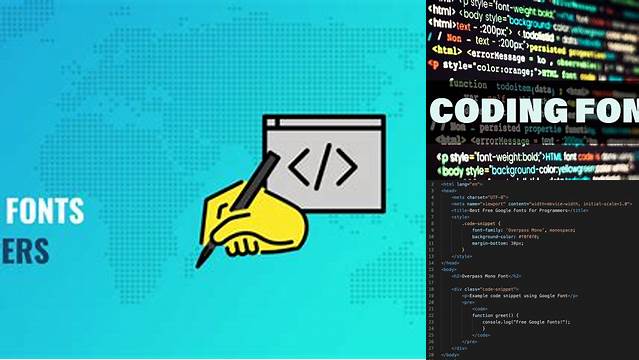
Top Free Coding Fonts: Enhance Your Development Experience
Choosing the right coding font can significantly impact your productivity and overall coding experience. A well-designed font reduces eye strain, improves readability, and helps you spot errors more easily. Luckily, there are tons of fantastic, free coding fonts available. Let's dive into some of the best options and what makes them great.
1. Monospaced Fonts for Coding
When it comes to coding fonts, monospaced fonts are the name of the game. What are they? Well, guys, these fonts ensure that every character occupies the same horizontal space. This is crucial for maintaining alignment in your code, making it easier to read and debug. Imagine trying to align columns of numbers or code with a font where the 'i' takes up less space than the 'm' – absolute chaos! Monospaced fonts eliminate this problem, providing a clean and consistent look. Some popular monospaced fonts for coding include Courier New, Consolas, and Monaco. However, many newer and more stylish options are now available that offer better readability and visual appeal. The key is to find a font that you find comfortable to look at for extended periods. The best way to do this is to try a few different fonts out and see what feels the best. Don't be afraid to experiment with different sizes and weights as well.
2. Best Free Fonts for Programming
Finding the best free fonts for programming is like discovering a hidden gem. These fonts not only save you money but also provide excellent readability and aesthetics for your code. One standout is Fira Code, known for its programming ligatures, which combine characters like != into a single, more readable symbol. Another great option is Source Code Pro, designed by Adobe, offering a clean and minimalist look. Roboto Mono is also a solid choice, providing a modern and approachable feel. When evaluating these fonts, consider factors like the clarity of individual characters, the spacing between lines, and the overall visual comfort. After all, you'll be staring at this font for hours on end, so it better be something you enjoy looking at! Experimenting with different fonts and finding one that suits your personal preferences can significantly improve your coding experience. And the best part? They're all free!
3. Top Coding Fonts Open Source
The open-source community has contributed significantly to the world of coding fonts, offering some of the best options completely free of charge. These fonts are often designed with specific programming needs in mind, focusing on readability and clarity. A prime example is Hack, a font specifically created to be a distraction-free coding typeface. It offers a wide range of glyphs and is designed to be easily readable on screens of all sizes. Another notable mention is JetBrains Mono, developed by JetBrains, the company behind popular IDEs like IntelliJ IDEA. It's designed to reduce eye strain and improve code comprehension. The beauty of open-source fonts is that they are often actively maintained and improved by the community, ensuring they remain up-to-date and meet the evolving needs of developers. Plus, you can often contribute to their development if you have suggestions or improvements! It is the best way to support the community of developers.
4. Free Fonts for Web Development
For web developers, the choice of font extends beyond the code editor to the actual websites they create. While the focus here is on coding fonts, many of these translate well to the web. When choosing free fonts for web development, consider factors like readability, rendering across different browsers and devices, and overall aesthetic appeal. Google Fonts offers a vast library of free fonts that are easy to embed in your web projects. Some excellent choices include Open Sans, Roboto, and Lato, all of which are highly readable and widely supported. When using these fonts in your web projects, make sure to optimize them for web performance. This includes using the correct font weights and subsets, and leveraging browser caching to ensure fast loading times. After all, a beautiful font is useless if it slows down your website!
5. Monospace Font Alternatives
While monospace fonts are the standard for coding, exploring monospace font alternatives can sometimes lead to pleasant surprises. Some developers find that certain proportional fonts, when carefully chosen, can offer a more natural and comfortable reading experience. However, it's crucial to ensure that the font maintains good alignment and doesn't introduce visual clutter. One potential alternative is using a font with a tabular lining feature, where numbers are monospaced even in a proportional font. This can be useful for aligning numerical data in your code. Another approach is to use a font that is specifically designed for reading long texts on screen, as these often prioritize readability and eye comfort. Ultimately, the choice comes down to personal preference and the specific requirements of your coding environment. Always test the font thoroughly to ensure it doesn't negatively impact your productivity.
6. Coding Font with Ligatures Free
Coding fonts with ligatures are a game-changer for many developers. Ligatures combine multiple characters into a single glyph, making code easier to read and understand. For example, the characters != might be displayed as a single ≠symbol. This can improve the visual flow of your code and reduce cognitive load. Several excellent free coding fonts offer ligatures, including Fira Code, JetBrains Mono, and Hasklig. When choosing a font with ligatures, it's important to ensure that the ligatures are well-designed and don't introduce ambiguity. Some ligatures can be overly stylized or difficult to distinguish from other characters. It's also worth noting that not all code editors and IDEs fully support ligatures, so you may need to adjust your settings to enable them. However, once you get used to coding with ligatures, you may never want to go back!
7. Best Terminal Fonts Free
Your terminal is where you spend a lot of time as a developer, so choosing the best terminal fonts free is essential for your comfort. The qualities that make a good terminal font are similar to those of a good coding font: readability, clarity, and a lack of distracting elements. Some popular choices for terminal fonts include Hack, Meslo LG M, and Source Code Pro. These fonts are designed to be easily readable even at small sizes and in environments with limited color palettes. When choosing a terminal font, consider the specific characteristics of your terminal emulator. Some emulators may have limitations in terms of font rendering or support for certain font features. It's also worth experimenting with different font sizes and weights to find the combination that works best for you. Remember, a comfortable and readable terminal font can make a big difference in your overall productivity.
8. Free Programming Fonts for Mac
Mac users have a wide range of free programming fonts to choose from, thanks to the platform's excellent font rendering capabilities. Many of the fonts mentioned earlier, such as Fira Code, Source Code Pro, and JetBrains Mono, work great on macOS. In addition, macOS comes with several built-in fonts that are suitable for coding, such as Menlo and Monaco. When choosing a free programming font for your Mac, consider the specific characteristics of your display. Retina displays, for example, can make even small fonts appear crisp and clear. It's also worth experimenting with different font smoothing settings to find the configuration that you find most comfortable. Some developers prefer to disable font smoothing altogether, while others find that it improves readability. Ultimately, the best font for you will depend on your personal preferences and the specific characteristics of your setup.
9. Free Fonts for Python Coding
Python developers, like all programmers, benefit from a well-chosen coding font. Whether you're working on data science projects, web applications, or scripting tasks, a readable font can make a big difference in your productivity. When choosing free fonts for Python coding, consider factors like the clarity of individual characters, the spacing between lines, and the overall visual appeal. Python code often involves a lot of indentation, so it's important to choose a font that makes it easy to distinguish different levels of indentation. Some excellent choices for Python coding include Consolas, Source Code Pro, and Fira Code. These fonts offer good readability and are widely supported across different platforms and code editors. Remember to experiment with different fonts and find one that suits your personal preferences and coding style. Remember your preferences matter.
10. Best Free C++ Coding Fonts
C++ code can be complex and challenging to read, so choosing the best free C++ coding fonts is crucial for maintaining readability and reducing errors. The font should be clear and easy to read, even when dealing with complicated syntax and long lines of code. Some popular choices for C++ coding include JetBrains Mono, Hack, and Source Code Pro. These fonts offer good readability and are designed to minimize eye strain. When choosing a font for C++ coding, consider the specific characteristics of your coding environment. If you're working on a large project with many files, it's important to choose a font that makes it easy to navigate and understand the codebase. It's also worth experimenting with different font sizes and weights to find the combination that works best for you. And don't forget to enable ligatures if your font supports them – they can make C++ code much easier to read.
11. Monospaced Fonts for Linux
Linux users have a wealth of options when it comes to monospaced fonts. Many of the fonts mentioned earlier, such as Fira Code, Source Code Pro, and JetBrains Mono, are readily available on Linux systems. In addition, Linux often comes with several pre-installed monospaced fonts, such as DejaVu Sans Mono and Ubuntu Mono. When choosing a monospaced font for Linux, consider the specific characteristics of your desktop environment and terminal emulator. Some environments may have limitations in terms of font rendering or support for certain font features. It's also worth experimenting with different font configuration options to optimize the appearance of your fonts. For example, you can adjust the hinting and antialiasing settings to improve readability. With a little experimentation, you can find a font that looks great and works well on your Linux system.
12. Best Free Fonts for VS Code
Visual Studio Code (VS Code) is a popular code editor, and choosing the best free fonts for VS Code is a common concern among developers. VS Code offers excellent font customization options, allowing you to fine-tune the appearance of your code to your liking. Some popular choices for VS Code include Fira Code, JetBrains Mono, and Dank Mono (though Dank Mono is not free, it's often mentioned in discussions). When choosing a free font for VS Code, consider factors like readability, ligatures, and overall aesthetic appeal. VS Code also supports font ligatures, so you can take advantage of this feature to improve the visual flow of your code. To customize the font in VS Code, open the settings and search for "editor.fontFamily". You can then enter the name of your preferred font. Experiment with different fonts and settings to find the combination that works best for you.
13. Free Programming Fonts for Windows
Windows users also have access to a wide variety of free programming fonts. Many of the fonts mentioned earlier, such as Consolas, Source Code Pro, and Fira Code, work well on Windows. In addition, Windows comes with several built-in fonts that are suitable for coding, such as Courier New and Lucida Console. When choosing free programming fonts for Windows, consider the specific characteristics of your display and the applications you'll be using. Some fonts may render better than others on Windows, depending on your system configuration. It's also worth experimenting with different font smoothing settings to find the configuration that you find most comfortable. You can adjust these settings in the Windows Control Panel. With a little experimentation, you can find a font that looks great and works well on your Windows system.
14. Coding Fonts for Long Hours
If you spend long hours coding, choosing a font that reduces eye strain is crucial. Coding fonts for long hours should be highly readable and comfortable to look at for extended periods. Some excellent choices include JetBrains Mono, Source Code Pro, and Fira Code. These fonts are designed to minimize eye strain and improve code comprehension. When choosing a font for long coding sessions, consider factors like the clarity of individual characters, the spacing between lines, and the overall visual appearance. It's also worth experimenting with different font sizes and weights to find the combination that works best for you. In addition to choosing the right font, make sure to take regular breaks and adjust your display settings to reduce eye strain. Your eyes will thank you!
15. Best Fonts for Coding Readability
Best fonts for coding readability prioritize clarity and ease of reading. The goal is to choose a font that makes it easy to scan and understand code quickly. Some popular choices include Source Code Pro, JetBrains Mono, and Consolas. These fonts offer good readability and are widely supported across different platforms and code editors. When evaluating fonts for readability, consider factors like the distinctness of individual characters, the spacing between lines, and the overall visual appearance. A well-designed font should make it easy to distinguish between similar characters, such as '1' and 'l' or '0' and 'O'. It should also provide adequate spacing between lines to prevent the code from looking cramped and cluttered. And don't forget to consider ligatures – they can improve readability by combining multiple characters into a single, more readable symbol.
16. Free Fonts for Java Programming
Java developers need fonts that can handle the language's verbose syntax and complex code structures. When choosing free fonts for Java programming, look for fonts with good readability and clear distinction between characters. Popular options include Consolas, Source Code Pro, and JetBrains Mono. These fonts are designed to minimize eye strain during long coding sessions. Consider a font's ability to render common Java symbols and operators clearly. Ligatures can be especially helpful in Java, making code easier to scan and understand. Ensure the font is compatible with your chosen IDE or editor. A comfortable and readable font can significantly improve your Java coding experience.
17. Open Source Coding Fonts for Data Science
Data science often involves working with large datasets and complex algorithms, making a readable coding font essential. Open source coding fonts for data science should offer clarity and precision. Fira Code, with its programming ligatures, is a popular choice for improving code readability. Hack is another excellent option, designed for distraction-free coding and clear rendering of numerical data. Consider fonts that render well in Jupyter notebooks and other data science environments. A well-chosen font can help reduce errors and improve productivity when analyzing and manipulating data. Prioritize fonts that maintain clarity even when displaying small font sizes, common in data science workflows.
18. Free Coding Fonts with Powerline Symbols
Powerline symbols enhance the aesthetics and functionality of terminals and code editors. Free coding fonts with Powerline symbols provide a visually appealing way to display information like Git branch, file status, and other relevant data. Popular options include patched versions of popular coding fonts like Fira Code and Source Code Pro. These patched fonts include the necessary glyphs to render Powerline symbols correctly. Ensure the font is compatible with your terminal emulator and Powerline configuration. A font with well-designed Powerline symbols can greatly improve your workflow and productivity.
19. Minimalist Free Coding Fonts
Some developers prefer a clean and uncluttered coding environment. Minimalist free coding fonts offer a simple and distraction-free experience. Source Code Pro is an excellent example of a minimalist font, with its clean lines and unobtrusive design. Roboto Mono is another solid choice, providing a modern and approachable feel. Consider fonts that prioritize readability without unnecessary ornamentation. A minimalist font can help you focus on the code itself, reducing visual clutter and improving concentration. Experiment with different fonts to find one that suits your personal preferences and coding style.
20. Best Free Fonts for Front-End Development
Front-end development involves working with HTML, CSS, and JavaScript, all of which require a readable coding font. Best free fonts for front-end development should offer clarity and visual appeal. Fira Code, with its programming ligatures, can enhance the readability of complex JavaScript code. Source Code Pro is another popular choice, providing a clean and minimalist look that works well with HTML and CSS. Consider fonts that render well in your chosen code editor and browser. A comfortable and readable font can significantly improve your front-end development workflow.
21. Free Coding Fonts for Dark Mode
Many developers prefer coding in dark mode to reduce eye strain. Free coding fonts for dark mode should be optimized for readability on dark backgrounds. Fonts with a slightly bolder weight or a higher contrast ratio often work well in dark mode. JetBrains Mono is a popular choice for dark mode, with its clear and well-defined characters. Source Code Pro is another solid option, providing good readability on both light and dark backgrounds. Experiment with different fonts and color schemes to find the combination that works best for you. A well-chosen font can make coding in dark mode a more comfortable and enjoyable experience.
22. Top Monospace Fonts for Web Developers
Web developers often require fonts that work well in both code editors and web browsers. Top monospace fonts for web developers should be versatile and readable across different platforms. Source Code Pro is an excellent choice, designed by Adobe for both coding and general use. Roboto Mono is another popular option, providing a modern and approachable feel that works well in web development environments. Consider fonts that offer good readability at different sizes and resolutions. A well-chosen font can improve your productivity and the overall aesthetic of your web projects.
23. Free Coding Fonts with Italics
Italics are often used in code to denote comments, keywords, or other important elements. Free coding fonts with italics should offer a clear and distinct italic style that is easy to distinguish from the regular font. Fira Code and Source Code Pro both offer well-designed italic styles that enhance code readability. Consider fonts that maintain clarity and readability even in italicized text. A font with good italics can improve your ability to quickly scan and understand code.
24. Best Coding Fonts for Eye Strain
Reducing eye strain is a major concern for developers who spend long hours coding. Best coding fonts for eye strain should be highly readable and comfortable to look at for extended periods. JetBrains Mono is specifically designed to reduce eye strain, with its optimized character shapes and spacing. Source Code Pro is another excellent choice, providing good readability and a minimalist design that minimizes distractions. Consider fonts that offer good contrast and clear character definitions. Taking regular breaks and adjusting your display settings can also help reduce eye strain.
25. Free Programming Fonts for Mobile Development
Mobile development often involves working with code on smaller screens, making a readable coding font even more important. Free programming fonts for mobile development should offer clarity and readability at smaller sizes. Source Code Pro is a good choice, as it is designed to be easily readable on screens of all sizes. Roboto Mono is another popular option, providing a modern and approachable feel that works well on mobile devices. Consider fonts that render well in your chosen mobile development environment. A well-chosen font can improve your productivity and reduce eye strain when coding on the go.
26. Open Source Fonts for Coding in JavaScript
JavaScript code can be complex and dynamic, requiring a readable coding font to maintain clarity. Open source fonts for coding in JavaScript should offer good readability and clear distinction between characters. Fira Code, with its programming ligatures, is a popular choice for improving the readability of JavaScript code. Hack is another excellent option, designed for distraction-free coding and clear rendering of symbols. Consider fonts that render well in your chosen code editor and browser. A well-chosen font can help you quickly scan and understand JavaScript code.
27. Free Fonts for Coding in HTML and CSS
HTML and CSS code often involves nested structures and complex syntax, making a readable coding font essential. Free fonts for coding in HTML and CSS should offer good readability and clear distinction between characters. Source Code Pro is a popular choice, providing a clean and minimalist look that works well with HTML and CSS. Roboto Mono is another solid option, providing a modern and approachable feel. Consider fonts that render well in your chosen code editor and browser. A well-chosen font can improve your productivity and the overall aesthetic of your web projects.
28. Best Fonts for Code Editors
Code editors are the primary tool for developers, making the choice of font crucial for productivity. Best fonts for code editors should offer excellent readability and customization options. Fira Code, JetBrains Mono, and Source Code Pro are all popular choices, offering good readability and support for ligatures. Consider fonts that are compatible with your chosen code editor and offer the features you need, such as customizable font sizes and weights. Experiment with different fonts and settings to find the combination that works best for you.
29. Free Coding Fonts for Beginners
For beginners learning to code, a readable and easy-to-understand font can make a big difference. Free coding fonts for beginners should offer clear character definitions and a simple, uncluttered design. Source Code Pro is an excellent choice, with its clean lines and unobtrusive design. Consolas is another solid option, providing good readability and wide support across different platforms. Consider fonts that are easy to read at different sizes and resolutions. A well-chosen font can help beginners focus on learning the fundamentals of coding.
30. Monospace Fonts for Different Screen Resolutions
The appearance of a font can vary depending on the screen resolution. Monospace fonts for different screen resolutions should offer good readability and clarity on a range of displays. Source Code Pro is designed to be easily readable on screens of all sizes, making it a versatile choice for different resolutions. Fira Code and JetBrains Mono are also good options, providing optimized character shapes and spacing for improved readability. Consider fonts that offer good contrast and clear character definitions on your specific display. Experiment with different font sizes and weights to find the combination that works best for you.